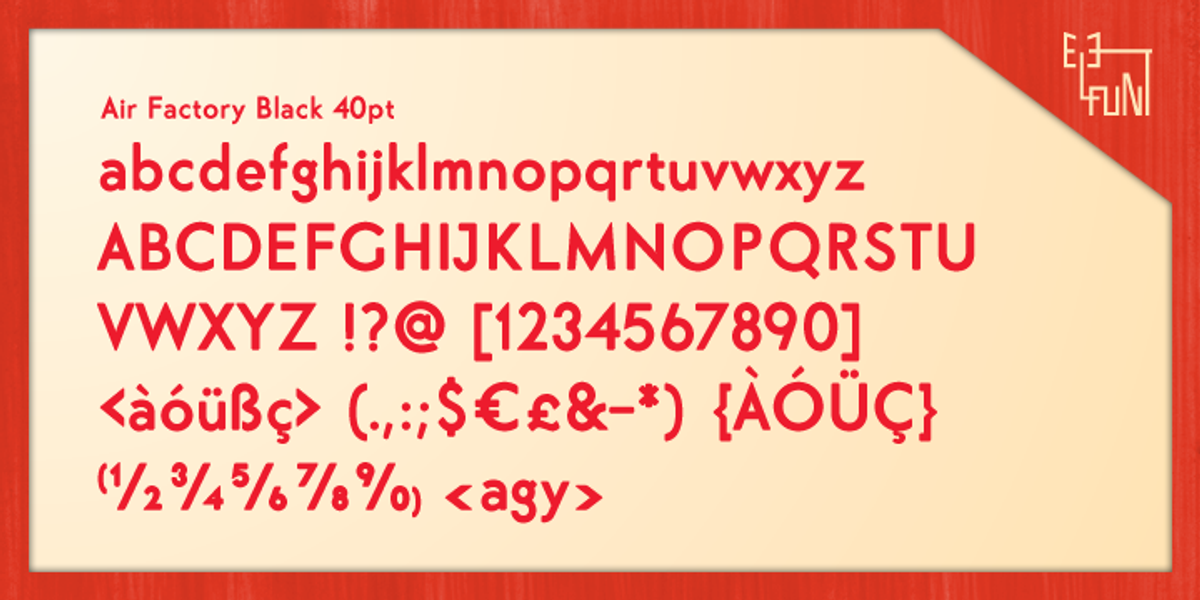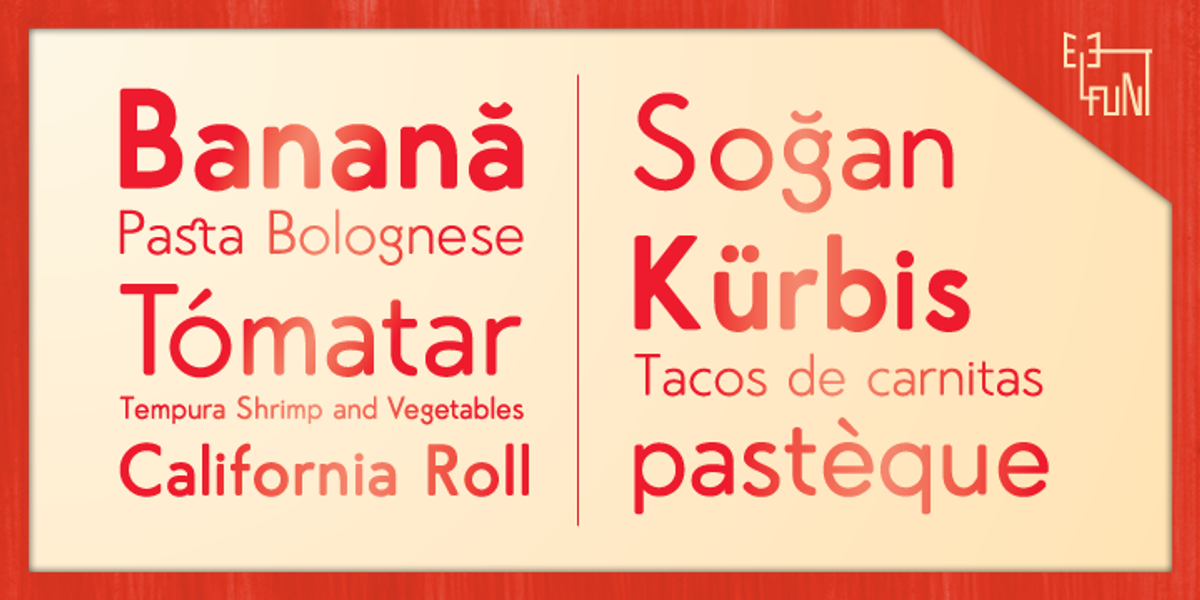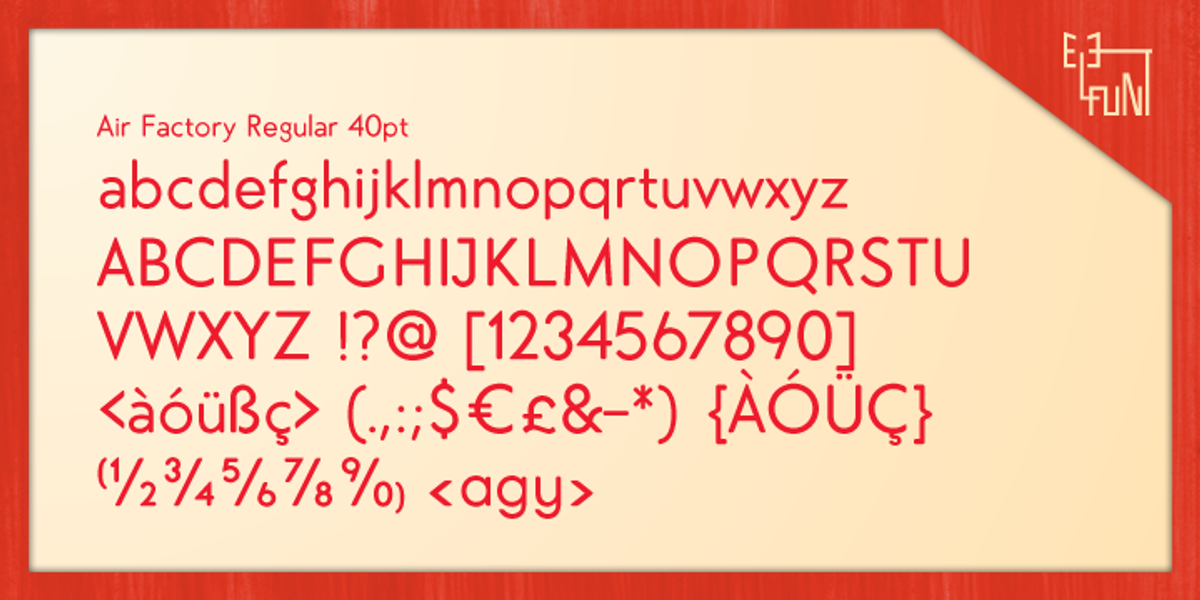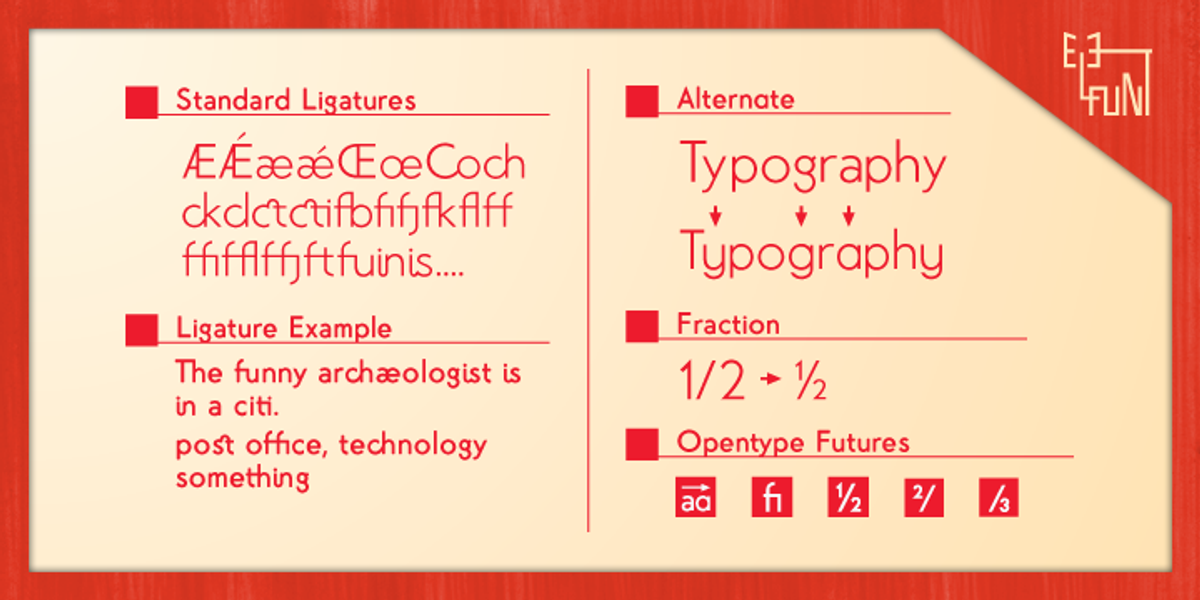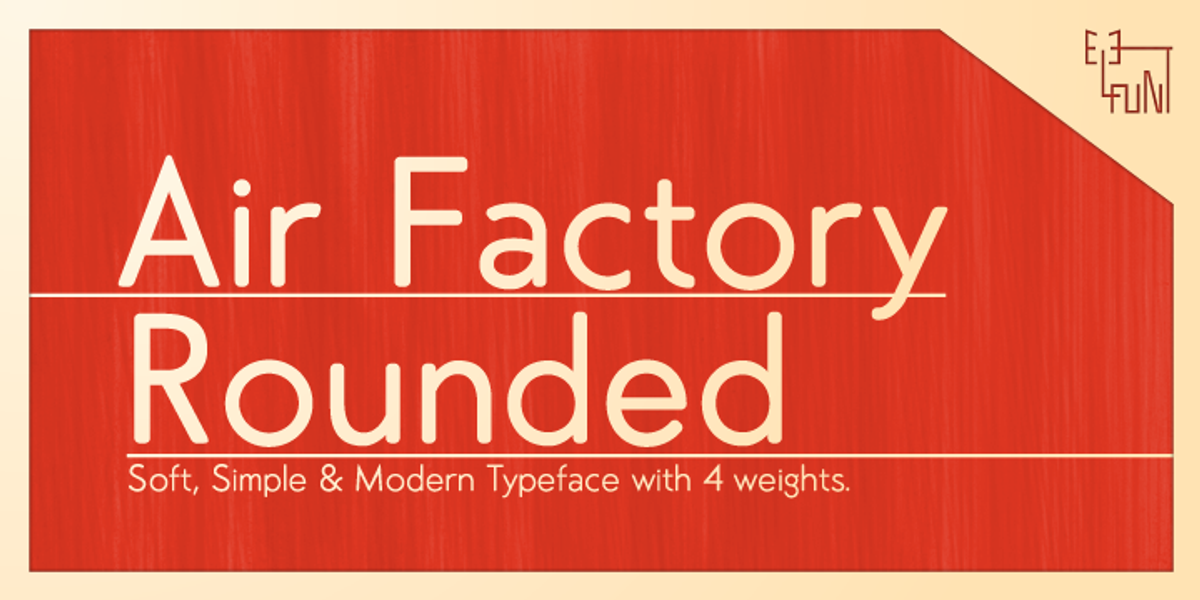
Air Factory Rounded
Air Factory Rounded is a modern sans-serif font characterized by its rounded edges, giving it a softer and more approachable feel. The typeface offers four weights, making it versatile for various applications, including headlines, body text, posters, restaurant menus, and branding materials.